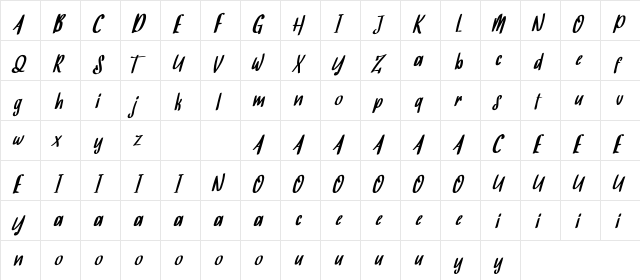
Burning Sun Demo Italic
Design Context for Burning Sun Demo Typeface
Burning Sun Demo is a composed and adaptable typeface that performs quietly and consistently across a wide range of design contexts. The slanted form adds forward momentum and visual energy.
Pro Tip: Use Burning Sun Demo for emphasis, pull quotes, and subheadings where its slanted energy can add rhythm to the layout.